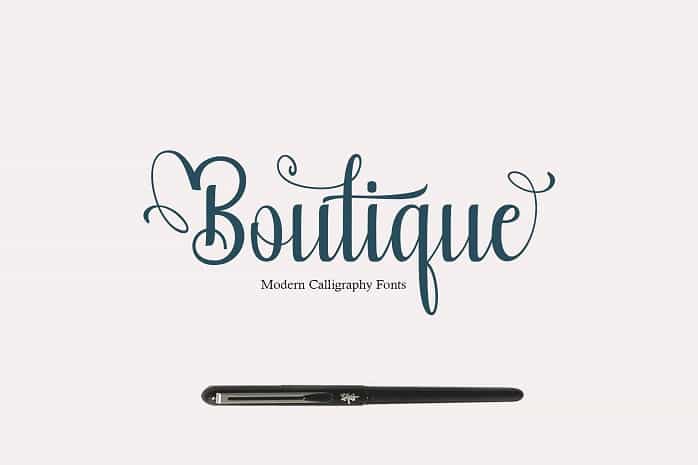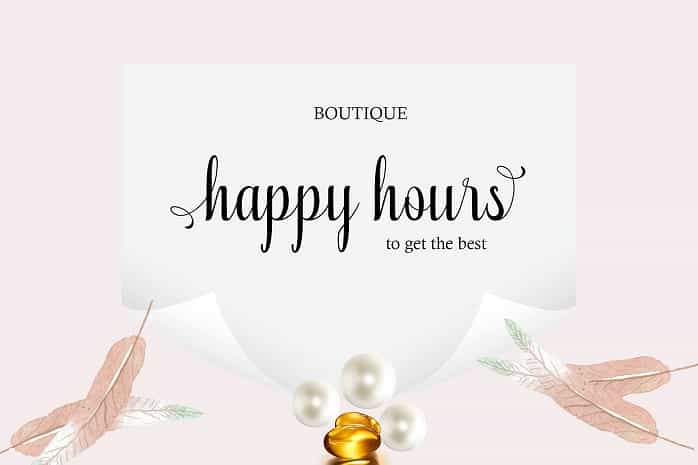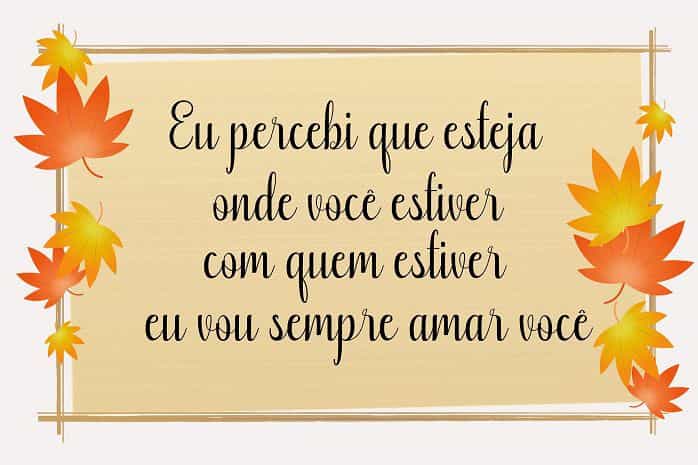
Introducing Boutique Font. Khinta was created and then shared by Deniz86. The Boutique Calligraphy Font is a hand-written work that has all the natural features. It is just right for invitations, signatures, blogs, social media posts and business cards. Boutique is a clear font which has Stylistic standards, and also the Alternatives. It also includes the uppercase and lowercase letters, numbers and punctuation.